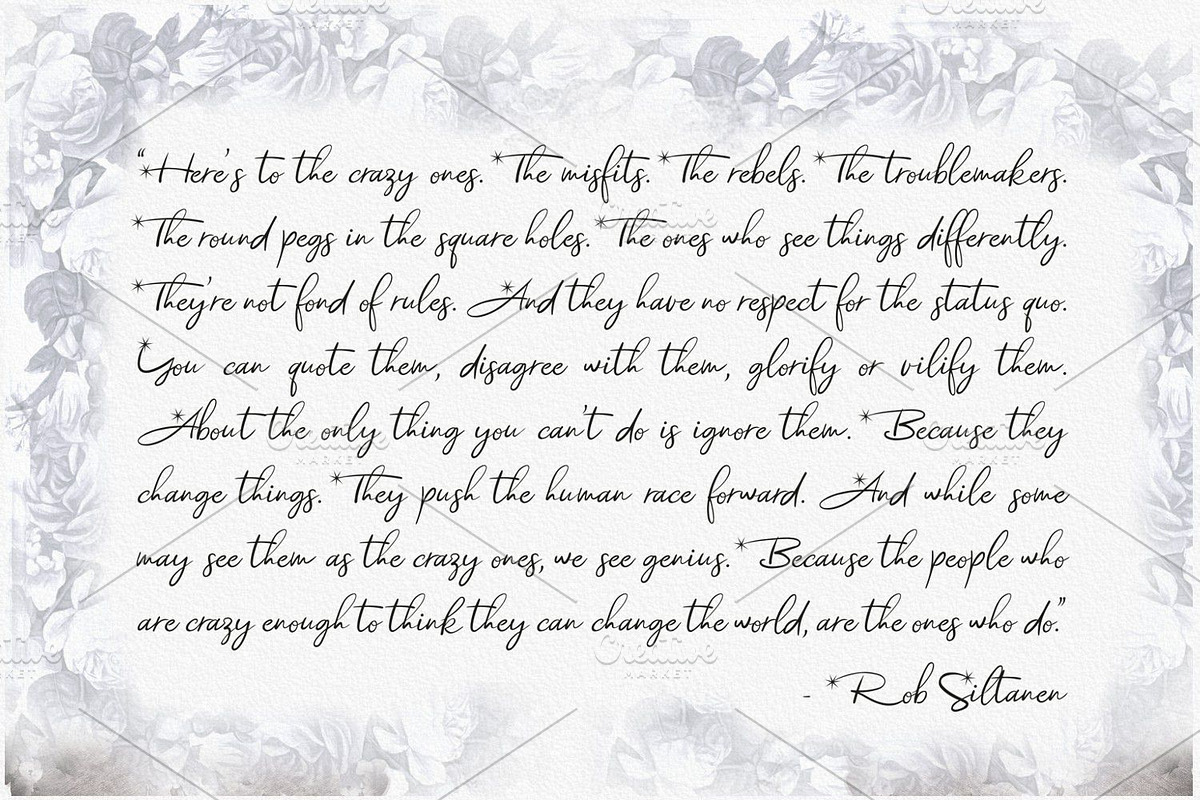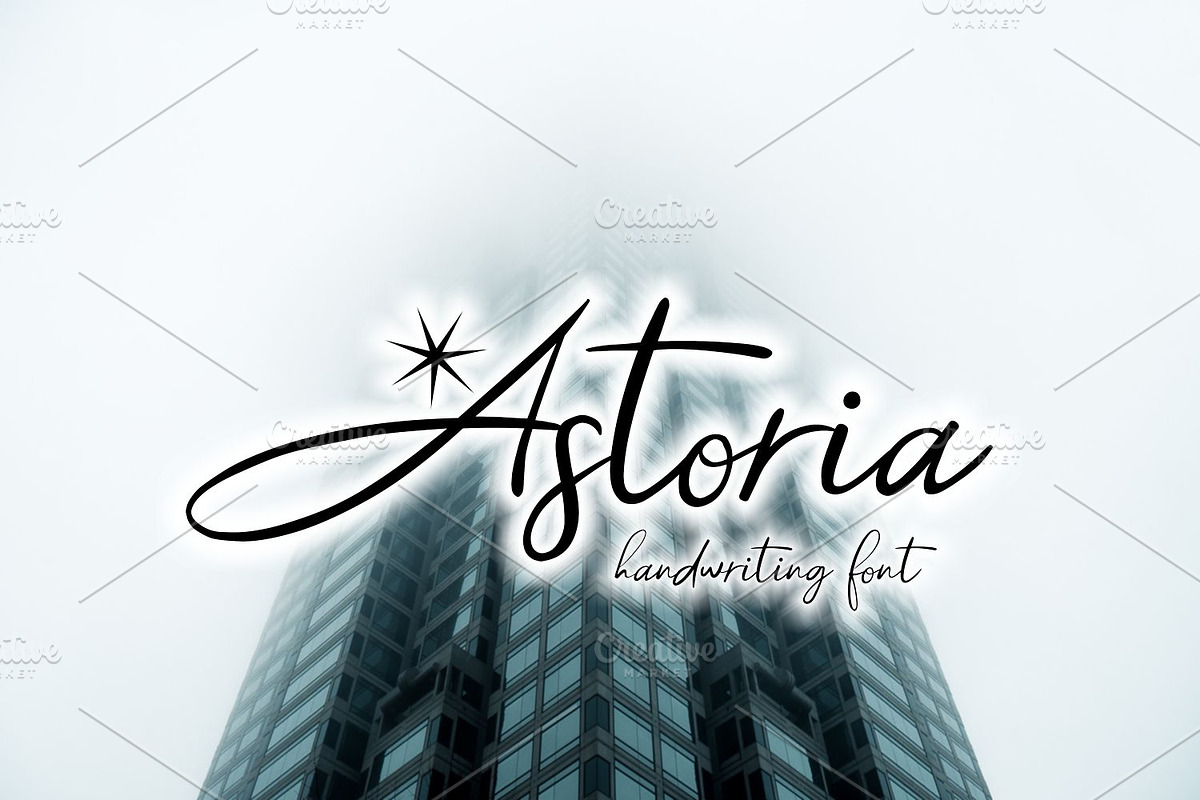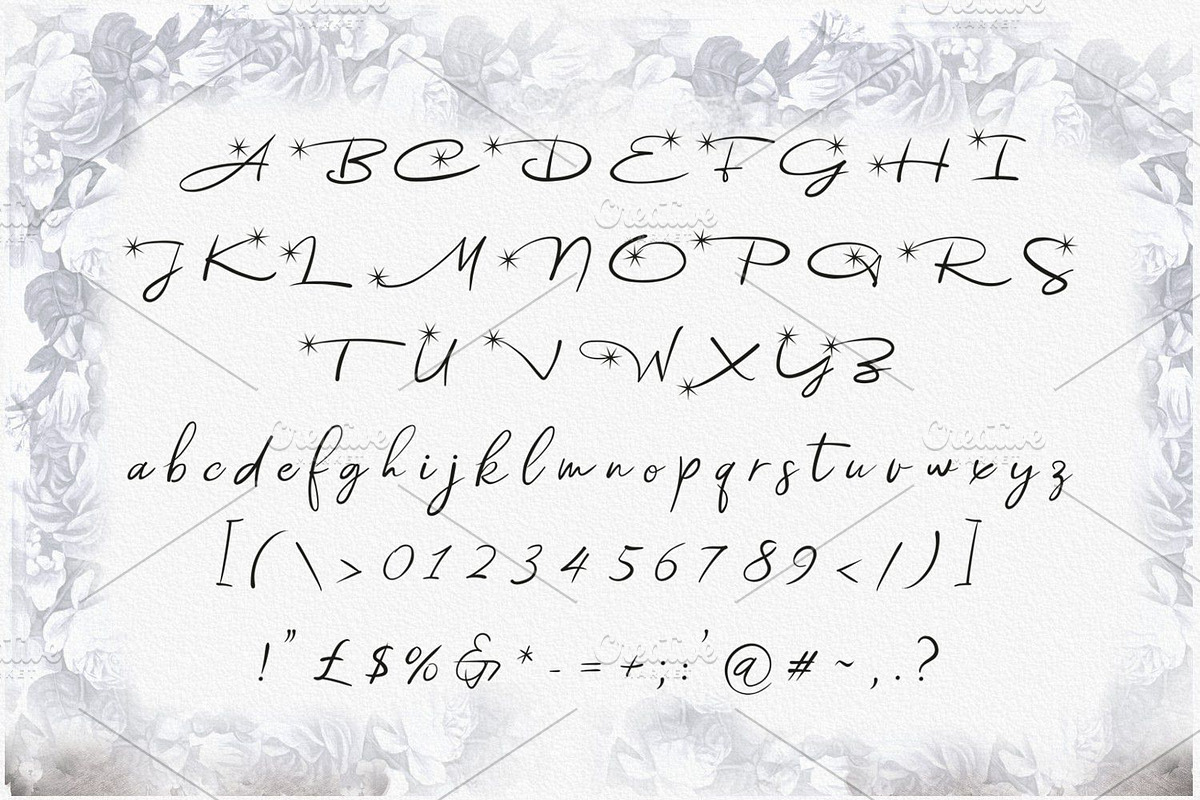
Astoria
- Astoria is ideal for logos, branding, packages and more.
Why Astoria is worth a look
Astoria by Digital Typeface Studio fits naturally into Branding, posters, packaging, typography.